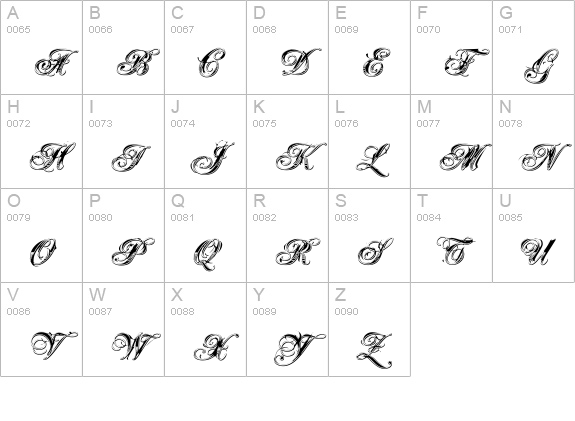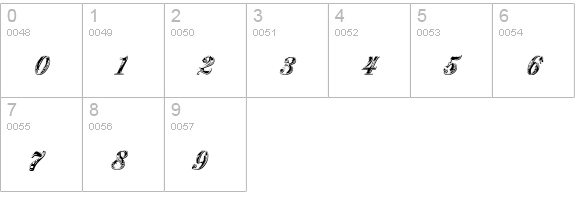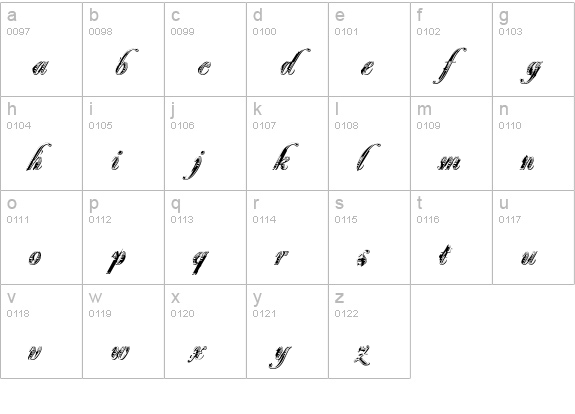
Great Circus Dirty Font Details
Great Circus Dirty font is a whimsical and playful typeface that brings a fun and energetic vibe to any design project. With its bold and irregular strokes, this font exudes a sense of spontaneity and creativity, making it perfect for circus-themed designs, children's books, posters, and more. The free-spirited nature of Great Circus Dirty font is sure to capture the attention of viewers and add a touch of charm to any project. Whether you're looking to create a lively party invitation or a vibrant flyer, this font will add a unique and eye-catching element to your design. Best of all, Great Circus Dirty font is freely available to download at FontsMarket.com, making it easy for you to add this dynamic typeface to your collection. Don't miss out on the opportunity to enhance your designs with the playful and energetic style of Great Circus Dirty font. Download it today and let your creativity soar!